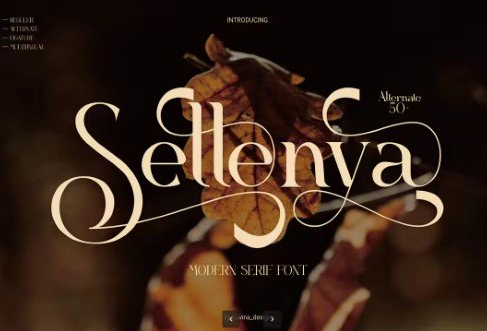
Sellenya – Modern Serif Font
Sellenya Modern Serif Font
Sellenya a modern and authentic font. Perfect for professional needs and product branding, this font is suitable for any branding project such as quotes, logos, blog headers, posters, ribbons, letters, invitations, stationery, etc… Designed to be versatile and flexible that can be used on a variety of projects and media. extraordinary in a variety of contexts.